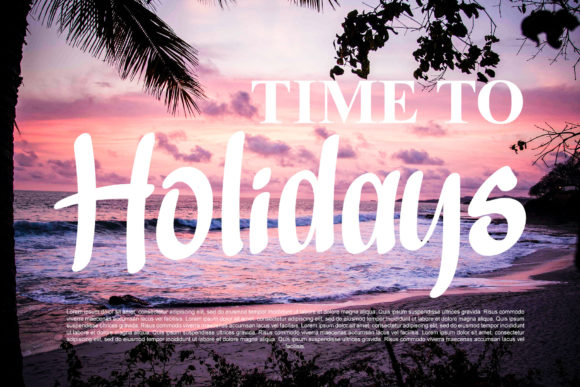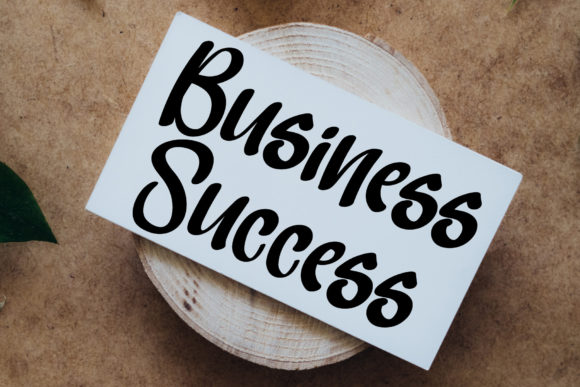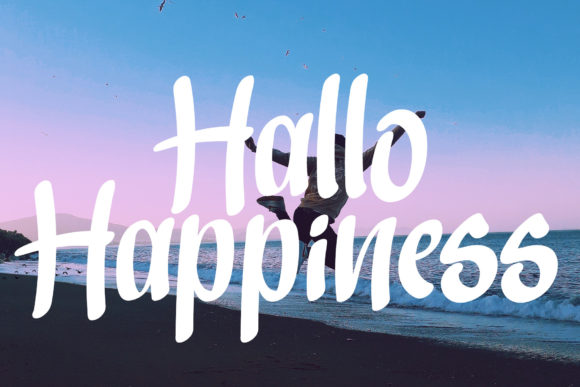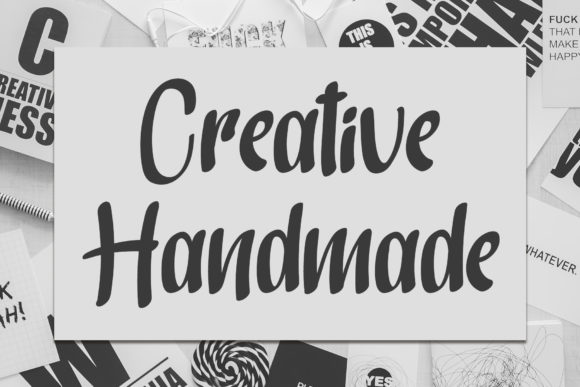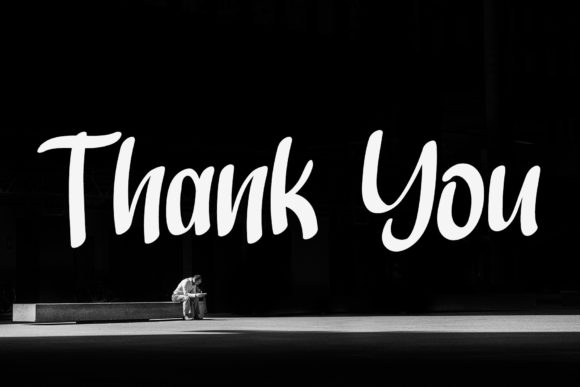
Black Woman Font
About Black Woman Font
Black Woman is a simple, friendly and cute handwritten font. This adaptable font will look great on a variety of design ideas. It will add a fun and adaptable touch to each of your projects!